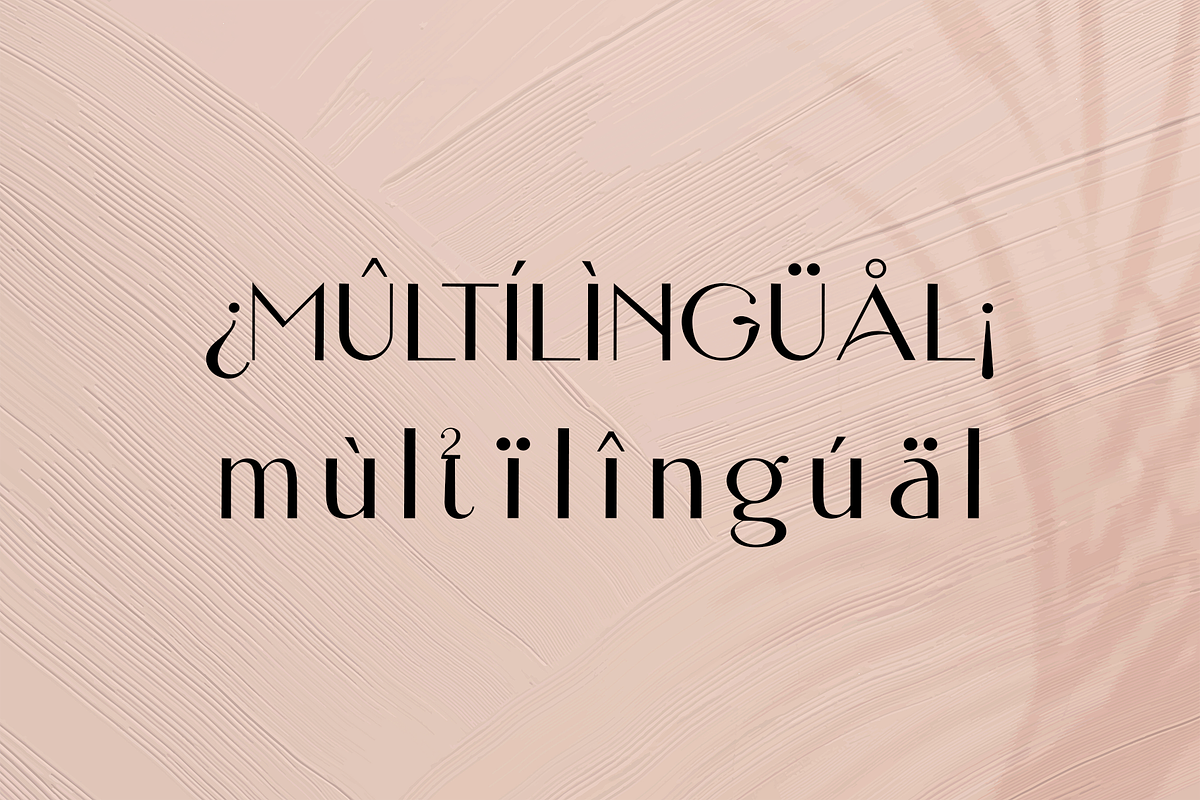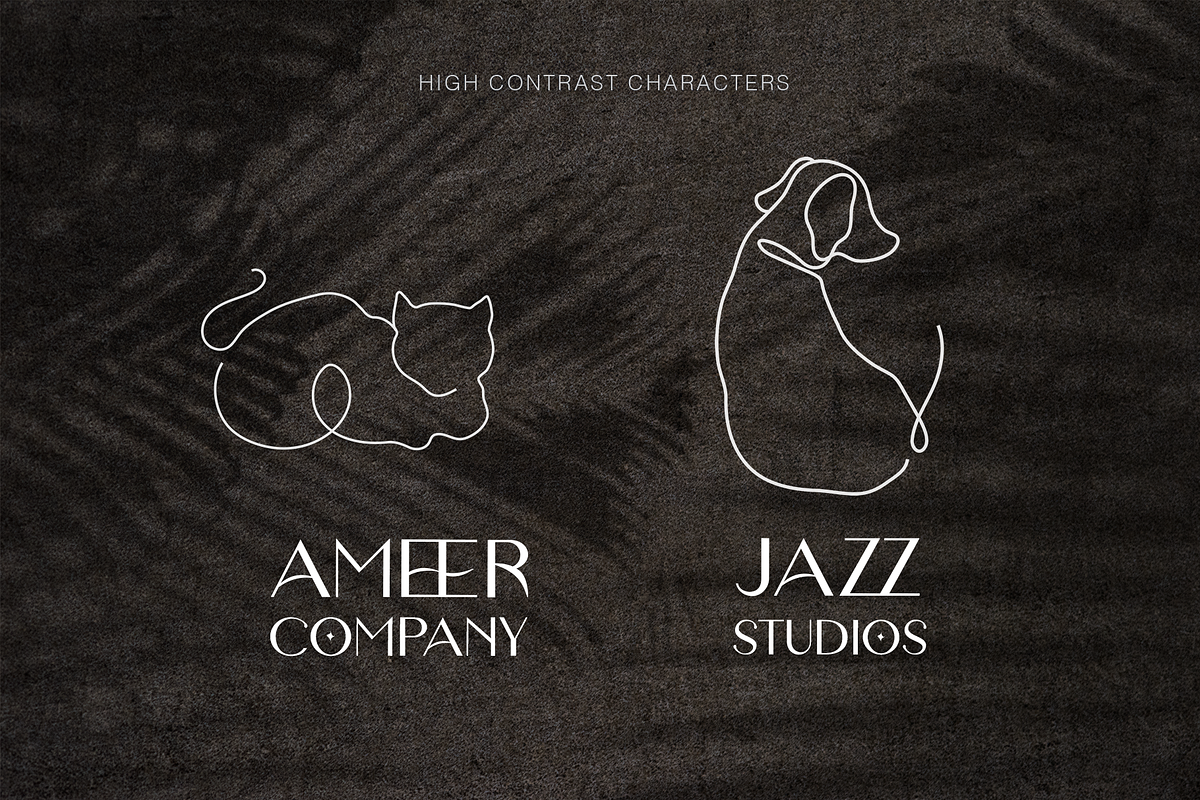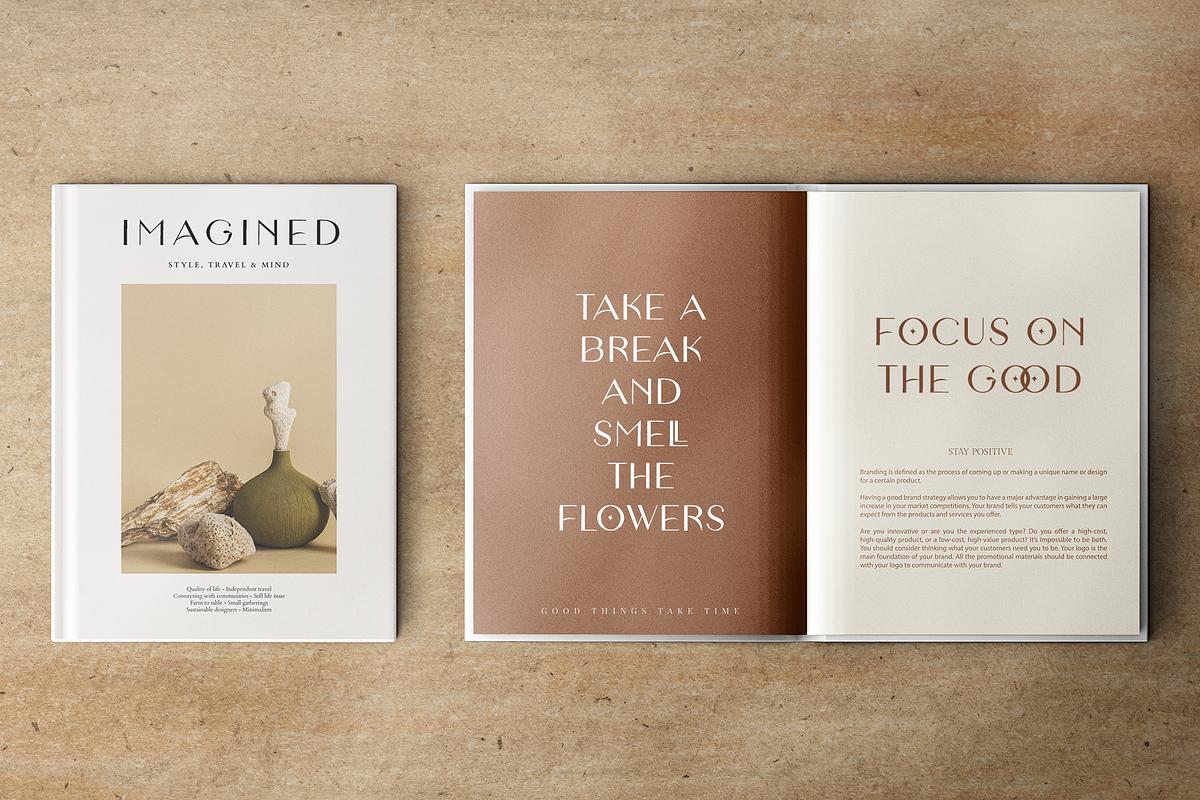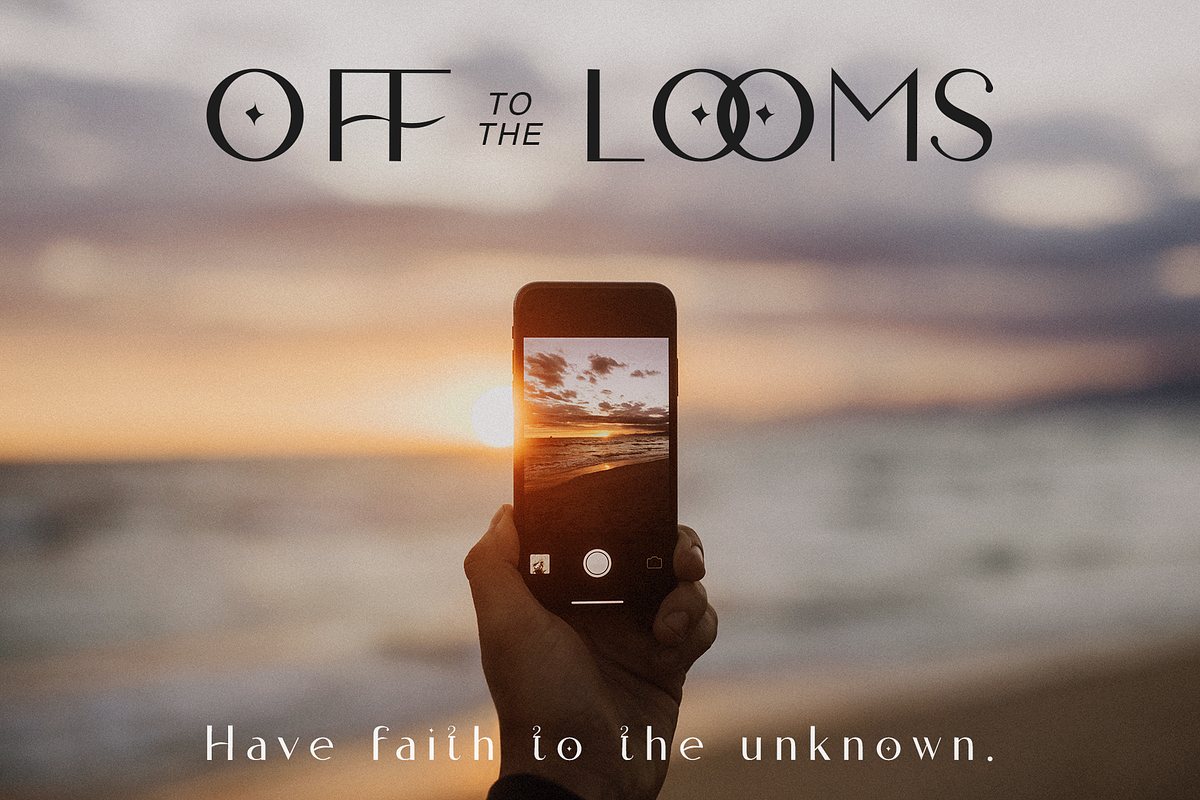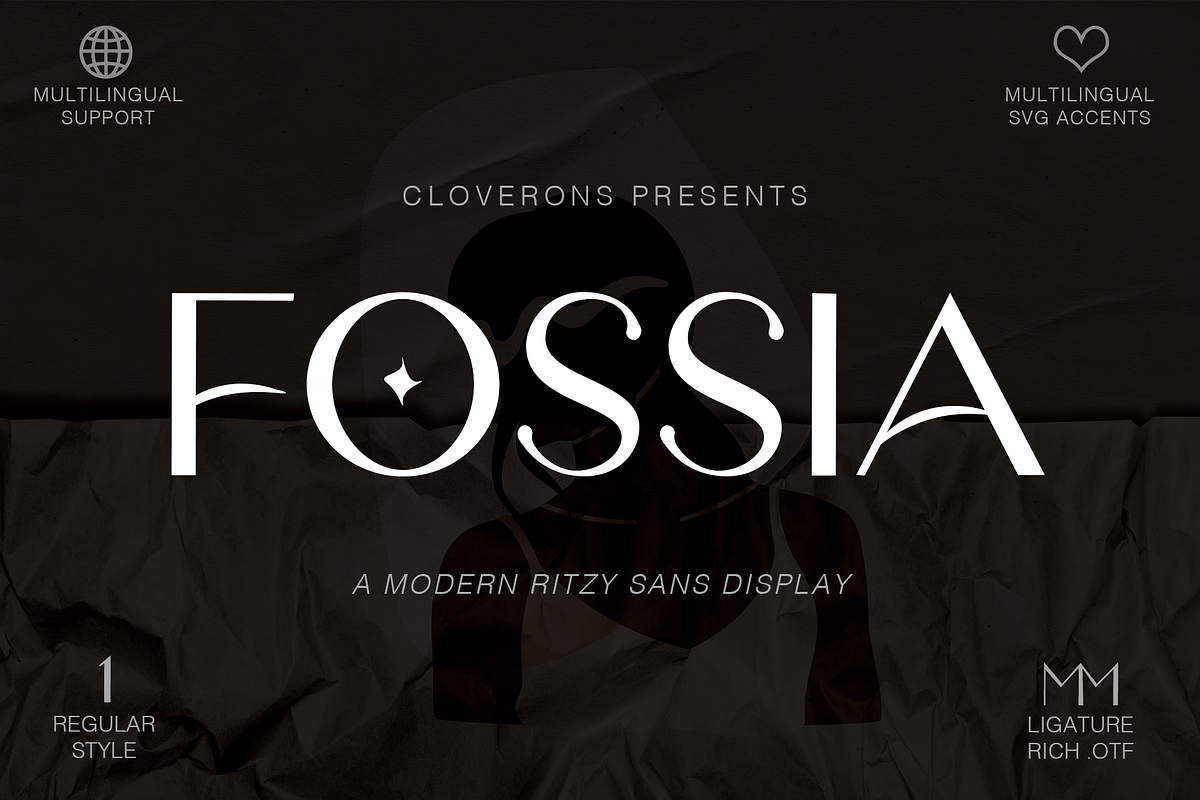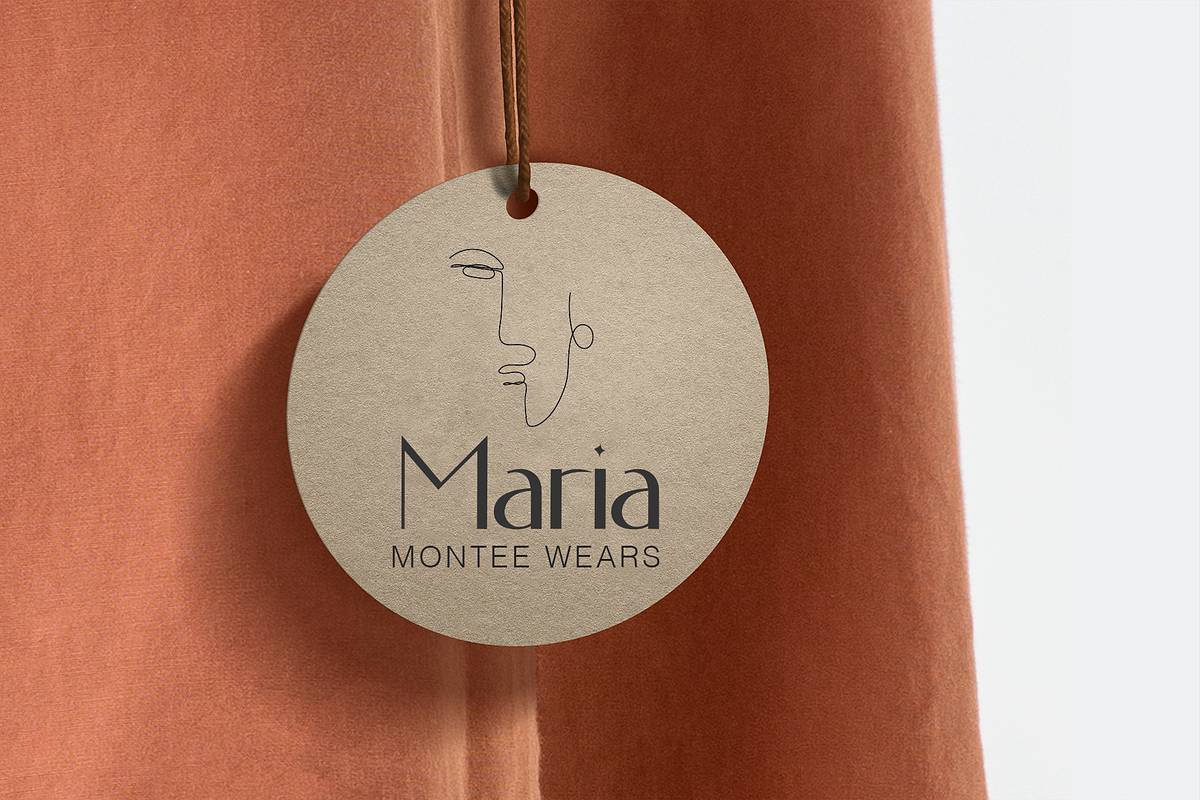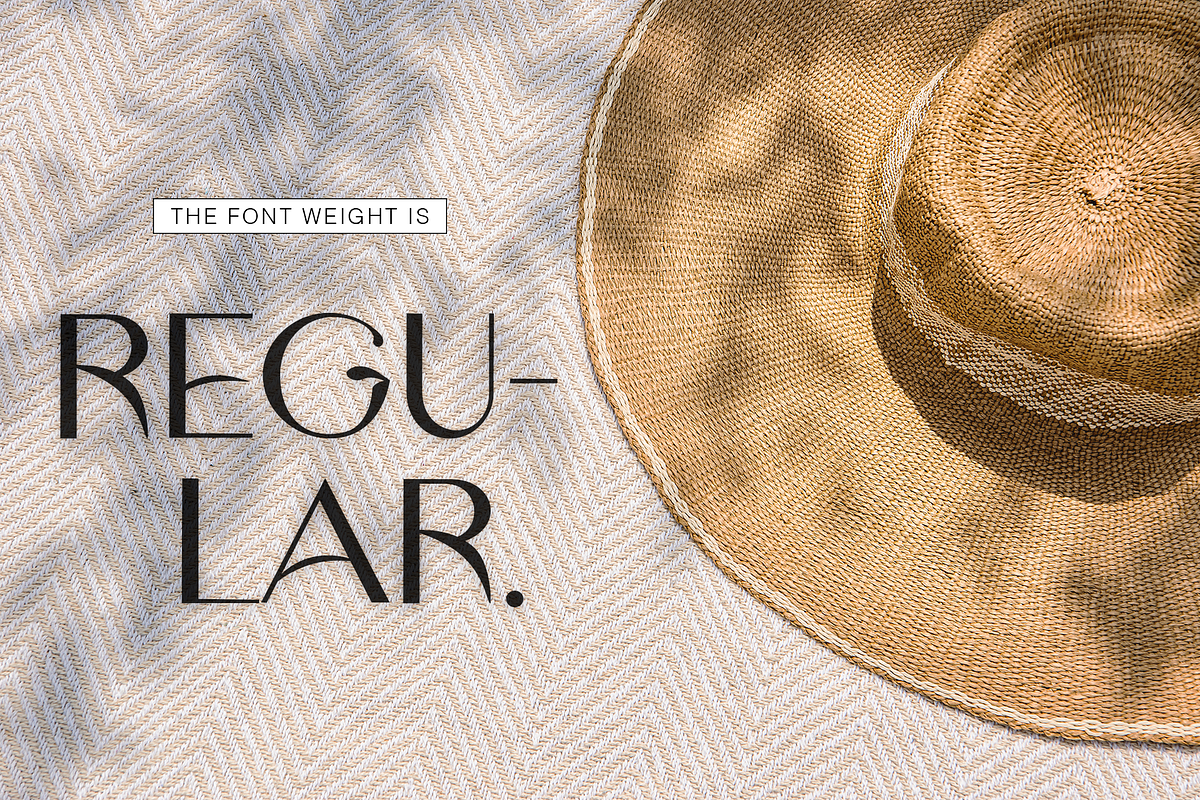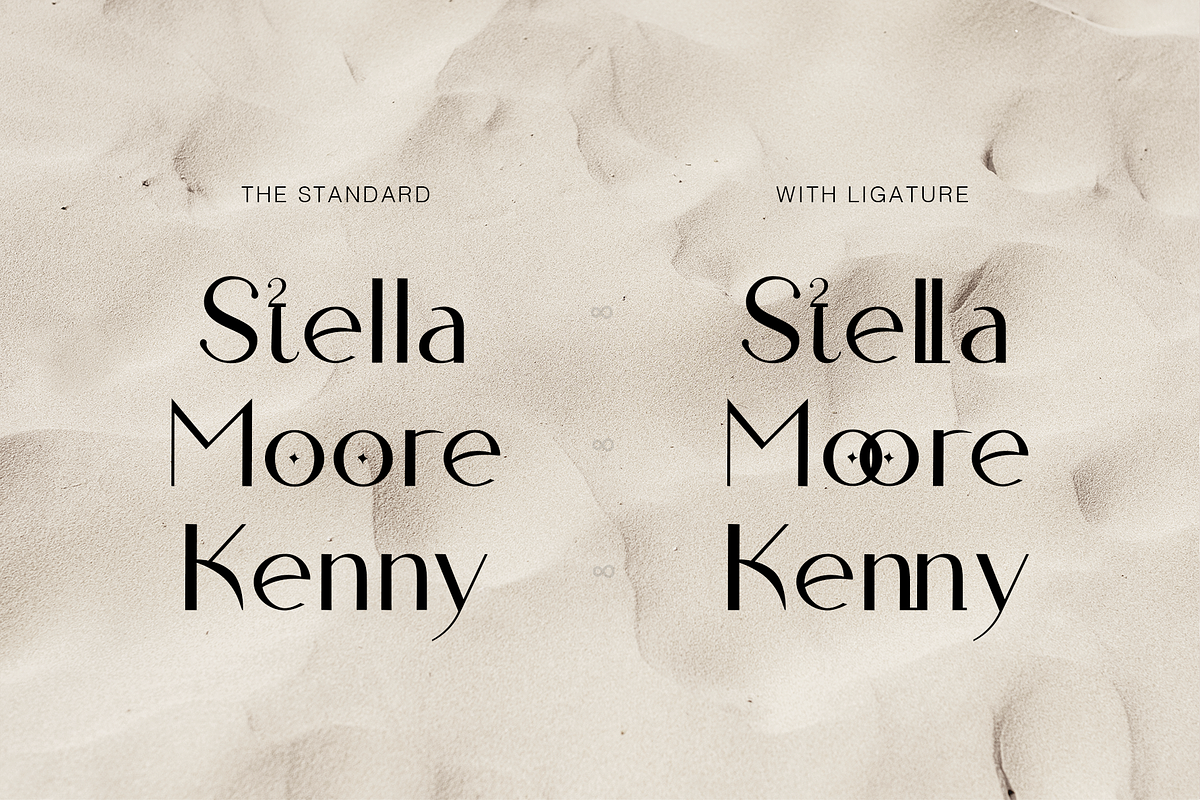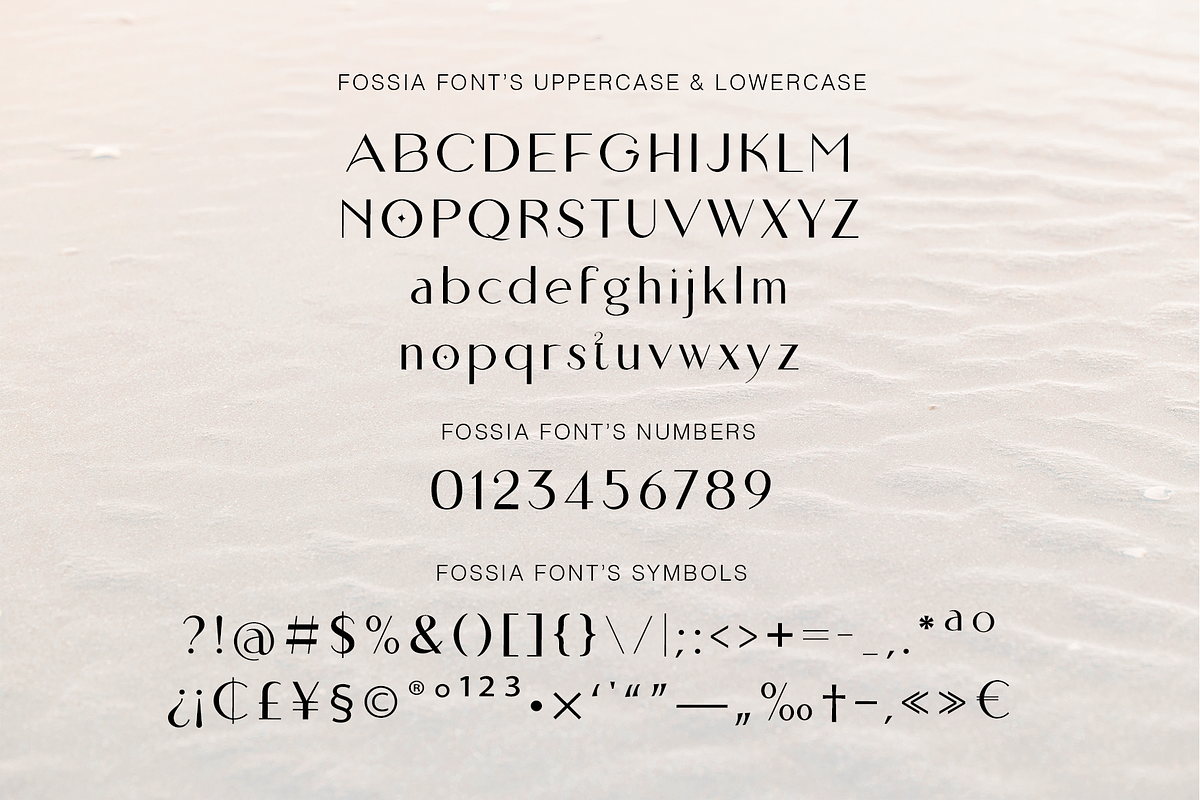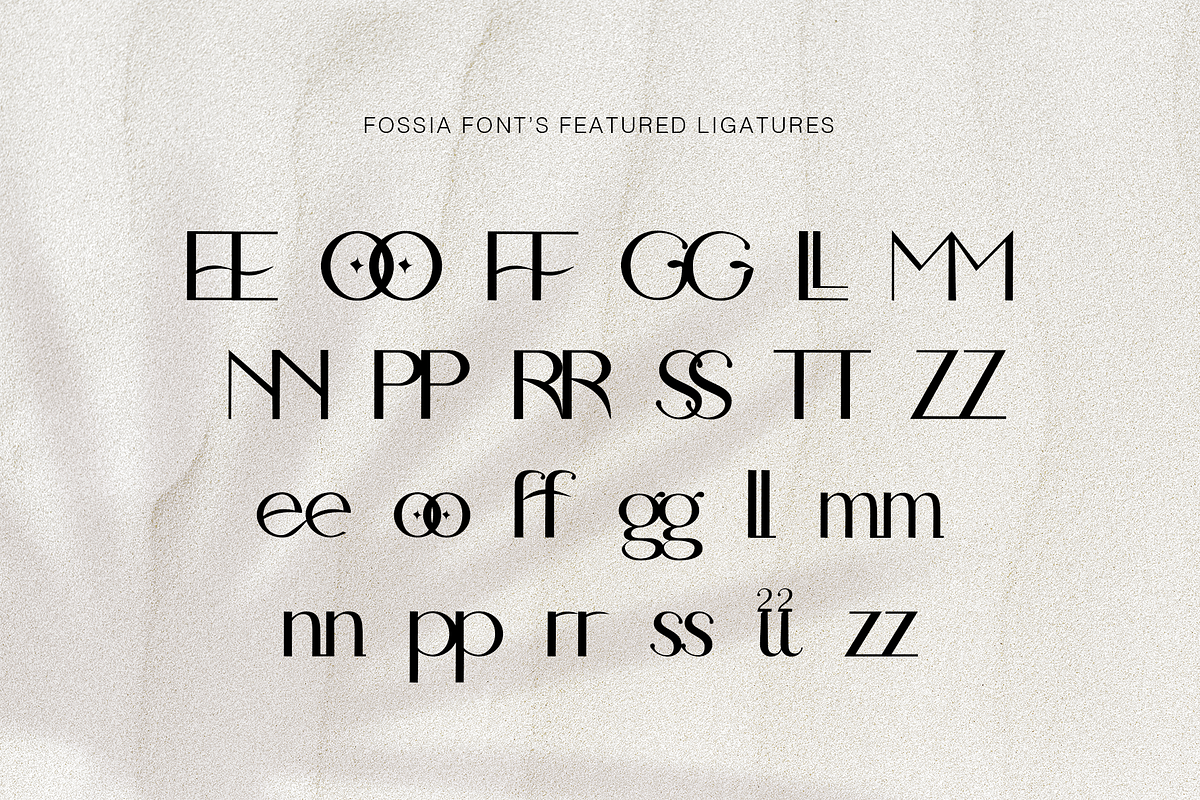
Fossia - Chic Modern Sans Display
Meet Fossia, a new sans serif display typeface of the 21st century. It has modern distinct letter accents and comes with beautiful ligatures. It's a very versatile font that works as standalone or paired with other fonts. It is a great design choice for branding, logo, labels, packaging, magazine headers & so much more.
Why Labeled Sans Display?
They are not optimal for reading, in 14 points and below which is the standard for a sans serif typeface; but are inspired with the sans serif modern, clean look with added feminine personality brought by their rich ligature nature. They are most optimal for Headers, logos, and big typographic elements to convey a meaning to your audience and grab their attention in a minimalistic way.
- Weight - Regular
- Lowercase & Uppercase
- Classy & Chic Ligatures
- Multilingual Accent .svg
- Multilingual Characters
- Language Support: Western Europe
Bonus: .svg of its distinct diamond star to place anywhere you want in your design. :)